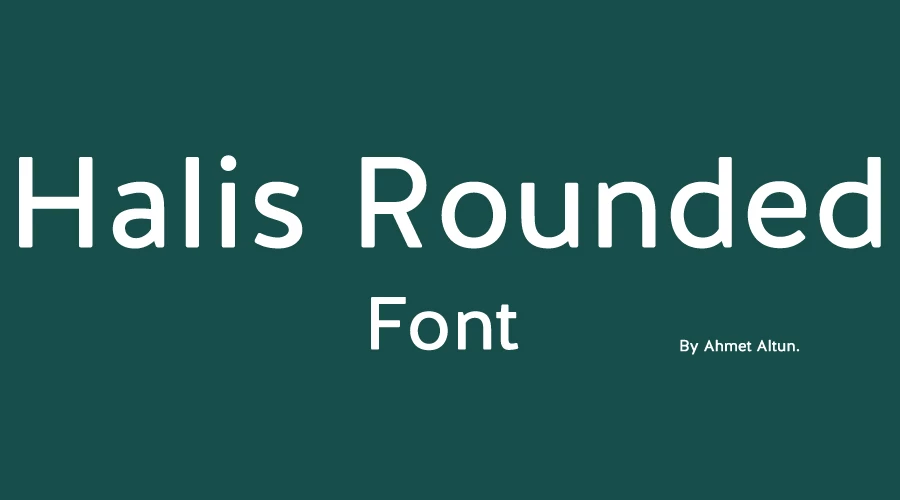
In 2013 Turkish developer Ahmet Altun designed Halis Rounded Font. Halis Rounded is a sans-serif font that can be found in 8 weights. Halis Rounded is the smoother variation of the Halis Grotesque household. The rounded edges instantly make it feel comparable to Brandon Grotesque. But there are no italic styles available.
Brandon Grotesque, Gill Sans, Mr. Eaves Font, and many more fonts resemble Halis Rounded. Halis Rounded is not free, so its file is not hosted here. Questrial and Lato are the free alternatives we compared with its letters.
Halis Rounded is a font that you can use everywhere. From routine keying to design production, this font appropriates to utilize in any viewpoint. Designers love to use this font more than others. Many designers favor this font for the purpose not only for their comfort yet likewise for the magnificent look. Besides designing, you can utilize this font in the section which is offered listed below.
Designing: For monumental developing purposes, Such as Business cards, Headings, pamphlet formats, Halis Rounded is at the top of everybody’s preferred checklist.
Logos: You can create your logos with it.
Sites: I have seen numerous internet sites utilize this font.
Publications: The font has the outlook to position on top of magazines.
- Brandon Grotesque.
- Gill Sans.
- Mr Eaves.
- ITC Johnston.
- Nova.